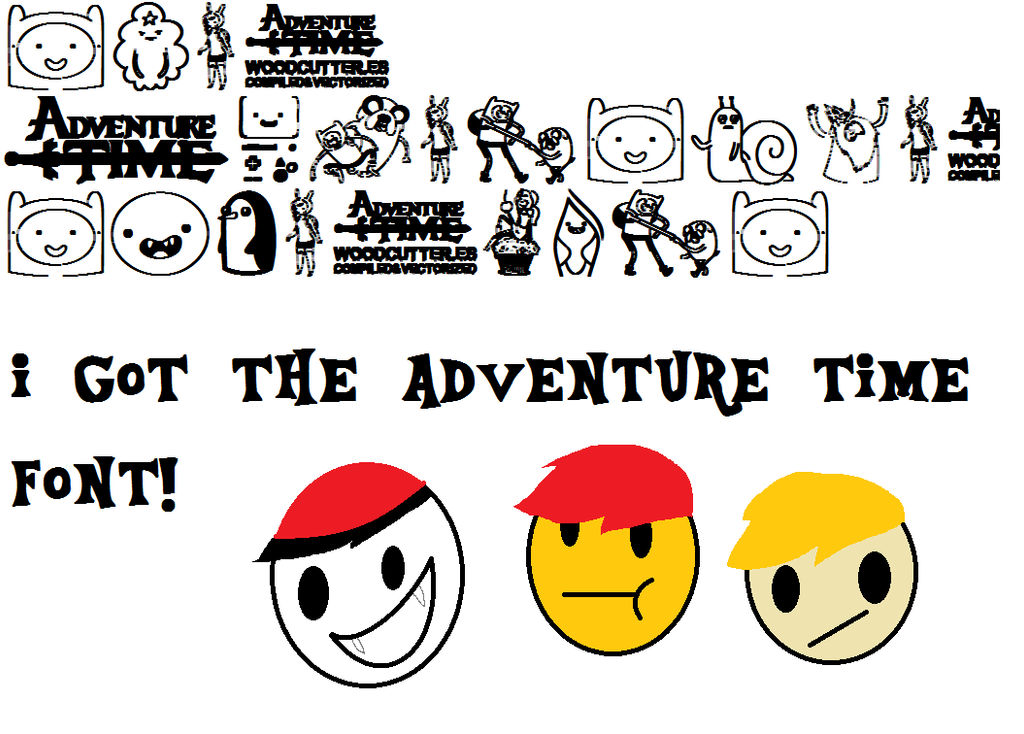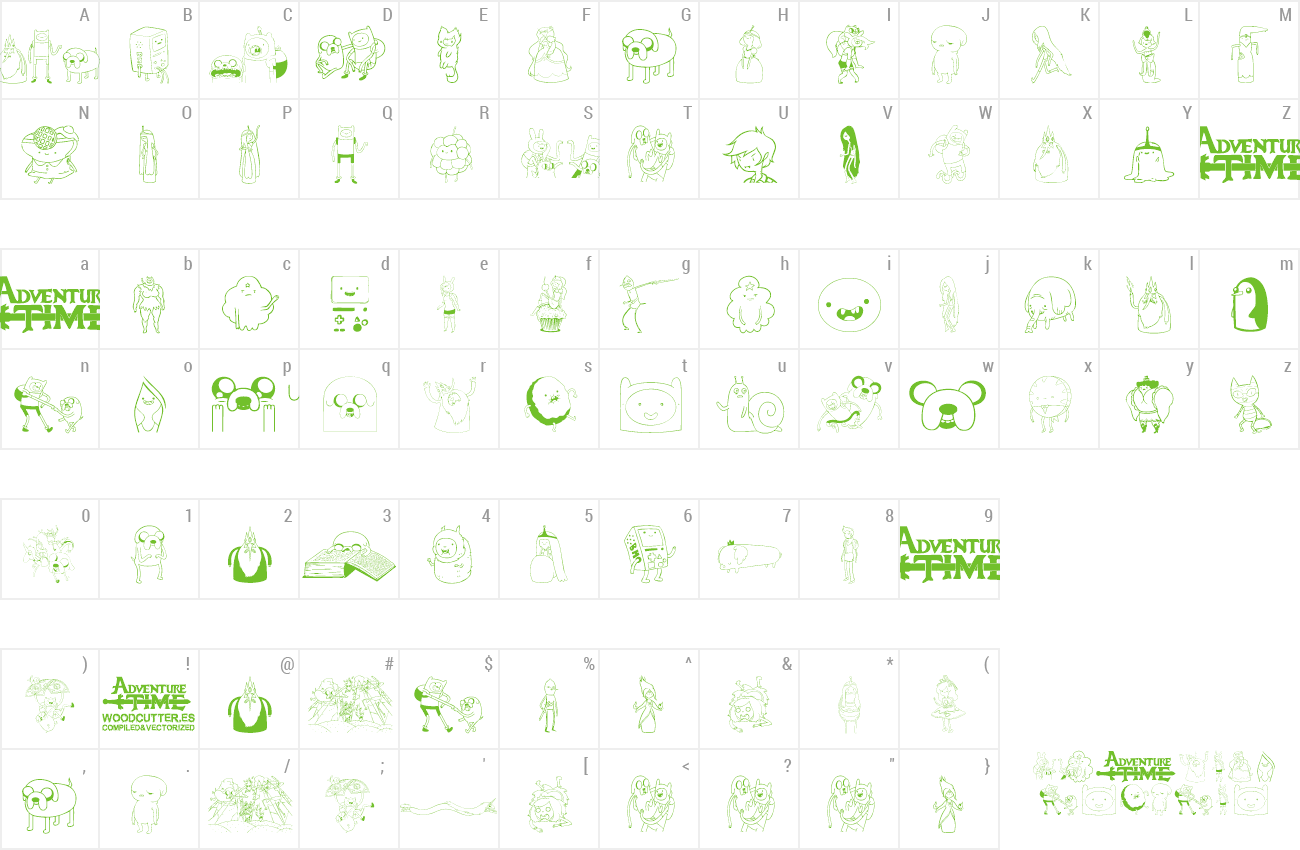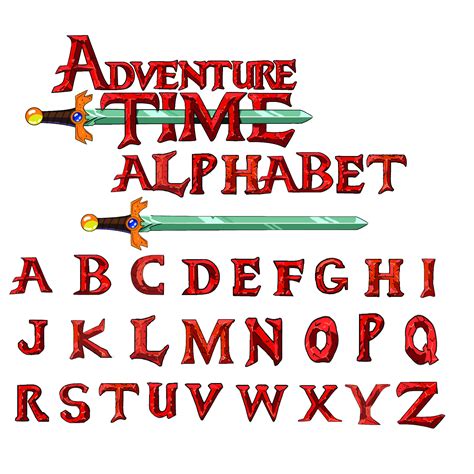
Adventure Time Font Generator
Adventure Time Logo Font Free Download
retromatti_w_part7_adventure time alphabet retromatti made and
I Got The Adventure Time Font! by trixies1fan on DeviantArt
Adventure Time Font Generator Adventure Banner Font Finn Jake Dafont
Adventure Time Font download free
Adventure Time Font Generator Adventure Banner Font Finn Jake Dafont
Adventure Time Logo Font Fonts Hut
Adventure Time Font? forum
Adventure Time Logo Font Fonts Hungry
Web adventure time font used in the popular adventure time cartoon is custom. This tool lets you change font style, add. Web download the thunderman font by tmanfan. The thunderman font has been downloaded 34,171 times. But a fan has recreated the replica and named it the.
Adventure Time Font Adventure Time Alphabet Adventure Time Etsy
But a fan has recreated the replica and named it the. This tool lets you change font style, add. Web download the thunderman font by tmanfan. The thunderman font has been downloaded 34,171 times. Web adventure time font used in the popular adventure time cartoon is custom.